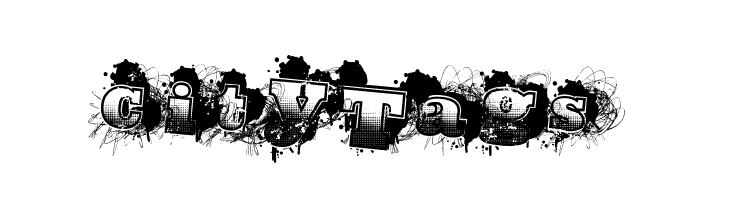
A playful, handwritten font with tall, slender characters and an informal style.
A decorative font with star motifs and a mystical, celestial style.
A bold, distressed font with a rugged, vintage appearance.
A playful, textured font with bold, italicized characters.
A bold, hand-drawn font with a playful and energetic style.
A playful, hand-drawn font with quirky serifs and a whimsical style.
A bold, geometric font with a modern, industrial style.
A bold, italic script font with a playful and dynamic style.
A lively and flowing script font with elegant, connected letterforms.
A futuristic, angular, and condensed italic font with bold strokes.
A bold, hand-drawn font with an expressive and dynamic style.
A tall, slender, and elegant font with high contrast and subtle curves.
A modern, angular font with a futuristic and bold design.
A bold, decorative script font with elegant curves and high contrast.
A playful dingbat font with quirky, hand-drawn illustrations.
A bold, decorative font with a playful, outlined style.
A bold, 3D italic font with a comic book style and strong visual impact.
A modern, geometric typeface with consistent stroke widths and a clean appearance.
A futuristic, segmented font inspired by digital displays.
A bold, decorative serif font with a vintage and playful style.
A bold, playful font with exaggerated curves and sharp edges, perfect for decorative use.
A bold, geometric font with a blocky, digital-inspired design.
A playful, hand-drawn font with outlined, hollow characters and a whimsical style.
A playful sans-serif font with heart motifs, perfect for romantic themes.
A bold, patriotic font with Uncle Sam and American flag motifs.
A bold, futuristic font with sharp, angular lines and a geometric style.
A bold, rustic font with a historical and hand-crafted appearance.
A bold, textured font with a distressed, artistic style.
A bold, hand-drawn font with a playful and energetic style.